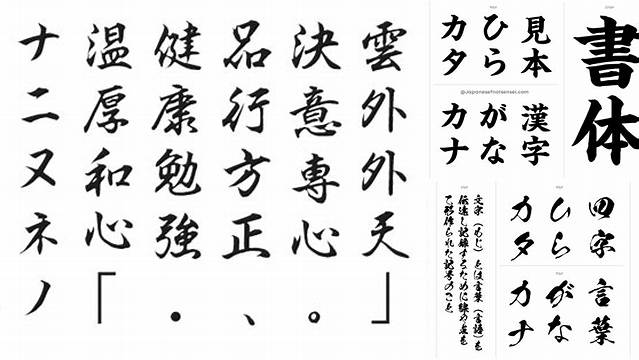
Free Kanji Calligraphy Fonts: Your Ultimate Guide
Introduction to Kanji Calligraphy Fonts
Hey guys! Let's dive into the fascinating world of kanji calligraphy fonts! If you're anything like me, you've probably marveled at the beauty and intricacy of Japanese calligraphy. The elegant strokes, the balance of the characters, and the overall artistic flair – it's truly captivating. But did you know that you can bring that same aesthetic to your digital projects? That's where kanji calligraphy fonts come in. These fonts are designed to mimic the look and feel of traditional Japanese calligraphy, allowing you to add a touch of authenticity and sophistication to your designs. Whether you're working on a website, a logo, a poster, or any other creative project, using a kanji calligraphy font can instantly elevate your work. In this article, we'll explore the world of free kanji calligraphy fonts, where to find them, and how to use them effectively. So, buckle up and let's get started!
Kanji, one of the three scripts used in the Japanese writing system, carries a rich history and cultural significance. Each character represents not just a sound, but also a meaning, making calligraphy a powerful form of expression. The art of shodō, or Japanese calligraphy, involves carefully crafting each stroke with a brush and ink, paying attention to balance, rhythm, and harmony. Now, imagine capturing that essence in a digital font – that's the magic of kanji calligraphy fonts. These fonts aren't just about replicating the shapes of the characters; they're about capturing the spirit of calligraphy. When you use a kanji calligraphy font, you're not just adding text; you're adding a piece of art. The right font can evoke a sense of tradition, elegance, and even a bit of mystery. But with so many fonts out there, how do you find the perfect one for your project? And more importantly, how do you find them for free? That's what we're here to explore. We'll be looking at various resources where you can download kanji calligraphy fonts without spending a dime, and we'll also discuss some tips for choosing the right font for your specific needs. So, whether you're a seasoned designer or just starting out, this guide will help you navigate the world of kanji calligraphy fonts and add a touch of Japanese artistry to your creations.
Tips for Choosing the Right Kanji Calligraphy Font
Okay, so you've found a bunch of free kanji calligraphy fonts – awesome! But how do you actually choose the right one for your project? It's not as simple as just picking the prettiest font; there are several factors to consider. First and foremost, think about the overall tone and style of your project. Is it formal and traditional, or modern and edgy? A very ornate and traditional font might be perfect for a wedding invitation or a certificate of authenticity, but it might look out of place on a website for a tech startup. On the other hand, a more modern and stylized font might be great for a logo or a poster, but it might not be appropriate for a formal document. So, really think about the message you're trying to convey and choose a font that aligns with that message.
Another important factor to consider is readability. While kanji calligraphy fonts are beautiful, some of them can be quite difficult to read, especially at smaller sizes. If your text is going to be displayed in a small size, such as on a business card or a website menu, you'll want to choose a font that is clear and legible. Avoid fonts with overly intricate strokes or very thin lines, as these can become blurry and difficult to read. It's also a good idea to test the font with different font sizes and on different backgrounds to see how it looks. If you're using the font for a large headline or a poster, you have a bit more leeway in terms of readability, but it's still important to make sure that the text is easily decipherable. In addition to tone and readability, think about the specific characters you need to use. Kanji is a complex writing system with thousands of characters, and not all fonts support all characters. If you're using a rare or obscure character, make sure that the font you choose actually includes it. You can usually check this by typing the character into a text box and seeing if it displays correctly. If the character doesn't display, it means the font doesn't support it, and you'll need to find a different font. Finally, don't be afraid to experiment! Try out different fonts and see what works best for your project. You might be surprised at how much a different font can change the look and feel of your design. And remember, the best font is the one that effectively communicates your message and enhances your overall design.
How to Use Kanji Calligraphy Fonts Effectively
So, you've chosen your perfect kanji calligraphy font – fantastic! But the journey doesn't end there. Knowing how to use the font effectively is just as important as choosing the right one. One of the biggest mistakes people make is overusing calligraphy fonts. Because they are so visually striking, they can easily overwhelm a design if used too much. A good rule of thumb is to use kanji calligraphy fonts sparingly, and only for key elements such as headlines, logos, or short phrases. Avoid using them for large blocks of text, as this can make the text difficult to read and tire the eyes. Think of calligraphy fonts as the spice in your design – a little goes a long way!
Another important tip is to pay attention to kerning and spacing. Kanji calligraphy fonts often have unique spacing requirements due to the intricate nature of the characters. You might need to adjust the kerning (the space between individual characters) and the tracking (the overall space between all characters) to ensure that the text looks balanced and harmonious. Most design software programs have kerning and tracking controls that allow you to fine-tune the spacing of your text. It's also a good idea to consider the context in which the font will be used. Will it be displayed on a website, in print, or in a video? The medium can affect how the font appears, so it's important to test it in the intended environment. For example, a font that looks great on a computer screen might not translate well to print, or vice versa. You might need to adjust the font size or weight depending on the medium. Furthermore, think about the cultural context. Kanji calligraphy is deeply rooted in Japanese culture, and it's important to use it respectfully. Avoid using kanji calligraphy fonts in a way that is culturally insensitive or that trivializes the art form. If you're not familiar with Japanese culture, it's a good idea to do some research or consult with someone who is before using kanji calligraphy fonts in your project. Finally, don't be afraid to pair kanji calligraphy fonts with other fonts. A well-chosen pairing can create a visually appealing and balanced design. A common technique is to pair a calligraphy font with a clean, sans-serif font. This creates a nice contrast and allows the calligraphy font to stand out without overwhelming the design. Experiment with different font pairings and see what works best for your project. Remember, effective use of kanji calligraphy fonts is all about balance, context, and respect for the art form. When used thoughtfully and sparingly, these fonts can add a touch of elegance and authenticity to your designs.
So, there you have it, guys! A deep dive into the world of free kanji calligraphy fonts. We've covered where to find them, how to choose the right one, and how to use them effectively. Hopefully, this guide has given you a solid foundation for incorporating these beautiful fonts into your creative projects. Remember, kanji calligraphy fonts are more than just text; they are a form of art that carries a rich history and cultural significance. When used thoughtfully and respectfully, they can add a touch of elegance, authenticity, and sophistication to your designs. Whether you're designing a logo, a website, a poster, or anything else, a well-chosen kanji calligraphy font can make your work stand out. So, go ahead and explore the vast world of free kanji calligraphy fonts and unleash your creativity! Just remember to always check the licensing information, choose fonts that are legible and appropriate for your project, and use them sparingly to avoid overwhelming your design. And most importantly, have fun experimenting and creating beautiful things! Happy designing, everyone!